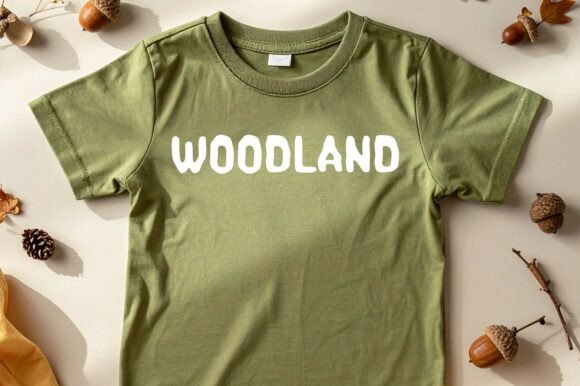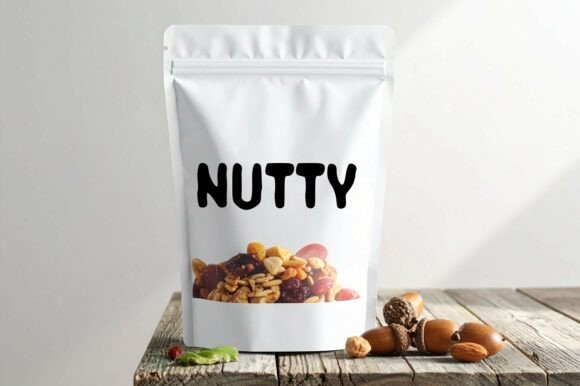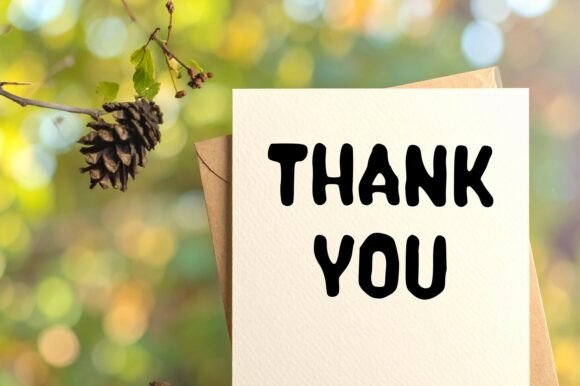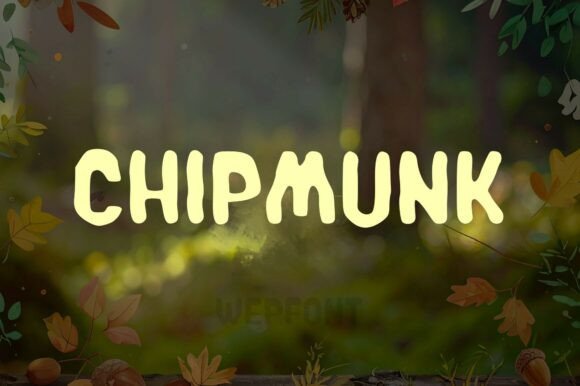
Discover the Charm of Chipmunk Font: A Nature-Inspired Display Font
Are you looking for a font that can add a touch of warmth and coziness to your designs? Look no further than the Chipmunk font, a captivating display font that embodies the tranquility of nature. With its unique blend of robust and deeply etched alphabets, this font is perfect for designers and crafters who want to bring a sense of rustic charm to their creations.
The Unique Character of Chipmunk Font
The Chipmunk font is designed to evoke a sense of natural serenity, with a pleasing and congenial vibe that is reminiscent of the great outdoors. Its organic aesthetic and handcrafted appeal make it an ideal choice for designers who want to create a sense of warmth and approachability in their designs. The font’s unique composition, which combines bold and deeply etched alphabets, gives it a distinctive look that sets it apart from other fonts.
A Perfect Blend of Style and Readability
One of the standout features of the Chipmunk font is its excellent readability. The font’s clean lines and smoothed-over irregular shapes make it easy to read, even at smaller sizes. This makes it an ideal choice for a range of applications, from titles and branding solutions to body text and more. The bold characters of the Chipmunk font maintain a friendly sensation, making it perfect for designers who want to create a sense of approachability and warmth in their designs.
Embracing the Beauty of Nature
The Chipmunk font is deeply rooted in nature, with an earthy and organic character that evokes the great outdoors. The font’s natural aesthetic makes it an ideal match for themes related to forests, nature, and the environment. Whether you’re designing a logo, brochure, or website, the Chipmunk font is the perfect choice for creating a sense of connection to the natural world.
The Chipmunk font is incredibly versatile, making it suitable for a wide range of design applications. From rustic and homey themes to more modern and sleek designs, this font can be used to create a unique and captivating visual identity. Here are just a few ideas for using the Chipmunk font:
• Branding solutions: Use the Chipmunk font to create a logo or brand identity that reflects your company’s values and personality.
• Titles and headings: Add a touch of rustic charm to your titles and headings with the Chipmunk font.
• Packaging design: Use the Chipmunk font to create eye-catching packaging that stands out on store shelves.
• Web design: Add a natural and organic feel to your website with the Chipmunk font.
Why Choose Chipmunk Font?
So why choose the Chipmunk font for your next design project? Here are just a few reasons:
• Unique and captivating character: The Chipmunk font has a distinctive look that sets it apart from other fonts.
• Excellent readability: The font’s clean lines and smoothed-over irregular shapes make it easy to read.
• Natural and organic aesthetic: The Chipmunk font is perfect for designers who want to create a sense of connection to the natural world.
• Versatile: The font can be used for a wide range of design applications, from branding solutions to packaging design.
In conclusion, the Chipmunk font is a nature-inspired display font that is perfect for designers and crafters who want to add a touch of warmth and coziness to their designs. With its unique character, excellent readability, and natural aesthetic, this font is sure to become a favorite in your design toolkit.